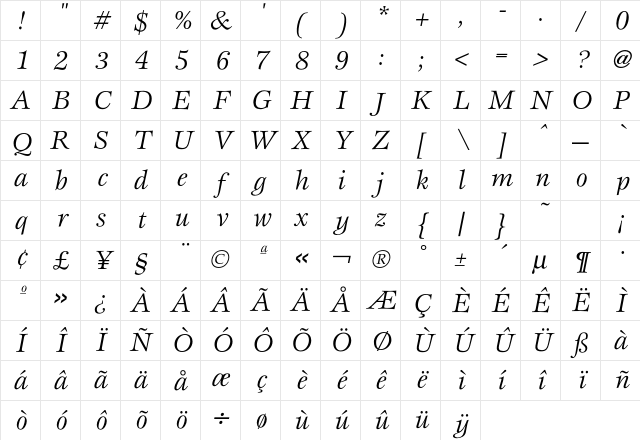
Esprit BookItalic
Style: BookItalic
Esprit Family
Esprit BookItalic
Complete Esprit BookItalic glyph index. Displaying only characters natively supported by Esprit BookItalic font.
Design Context for Esprit
Esprit is a composed and adaptable typeface that performs quietly and consistently across a wide range of design contexts. The slanted form adds forward momentum and visual energy.
Pro Tip: Use Esprit for emphasis, pull quotes, and subheadings where its slanted energy can add rhythm to the layout.